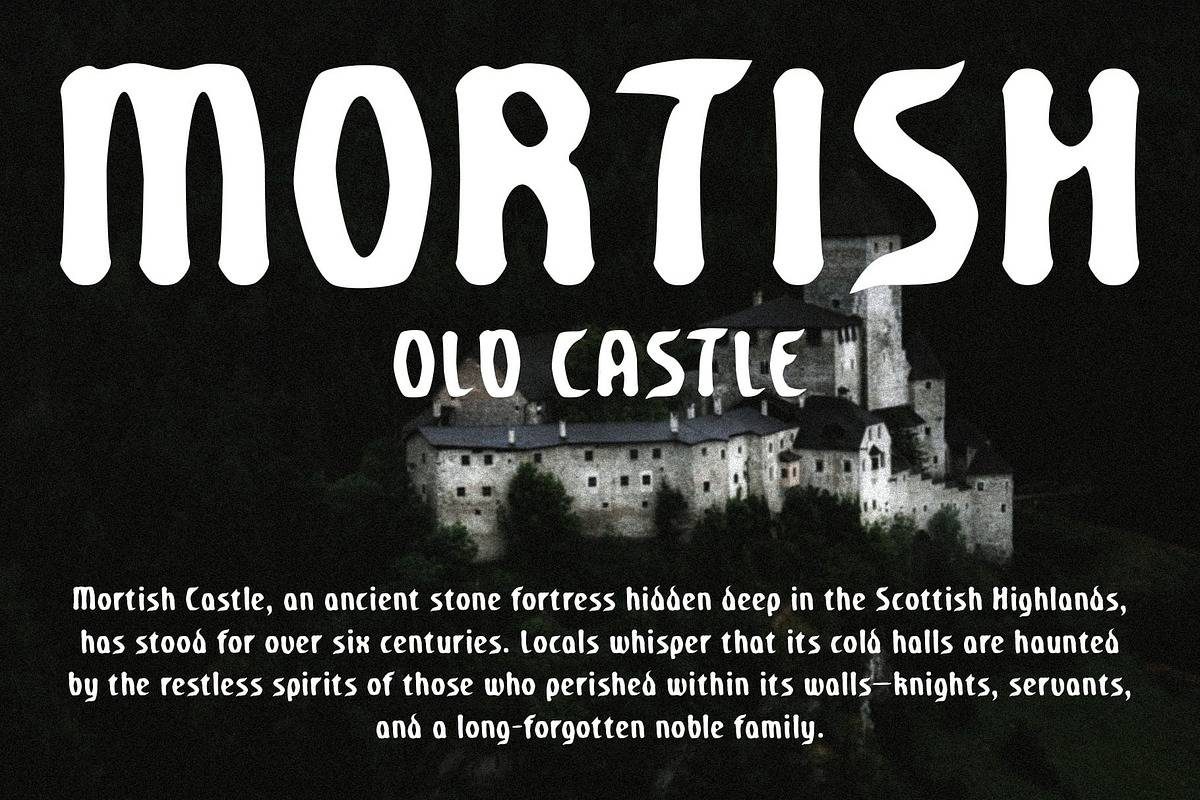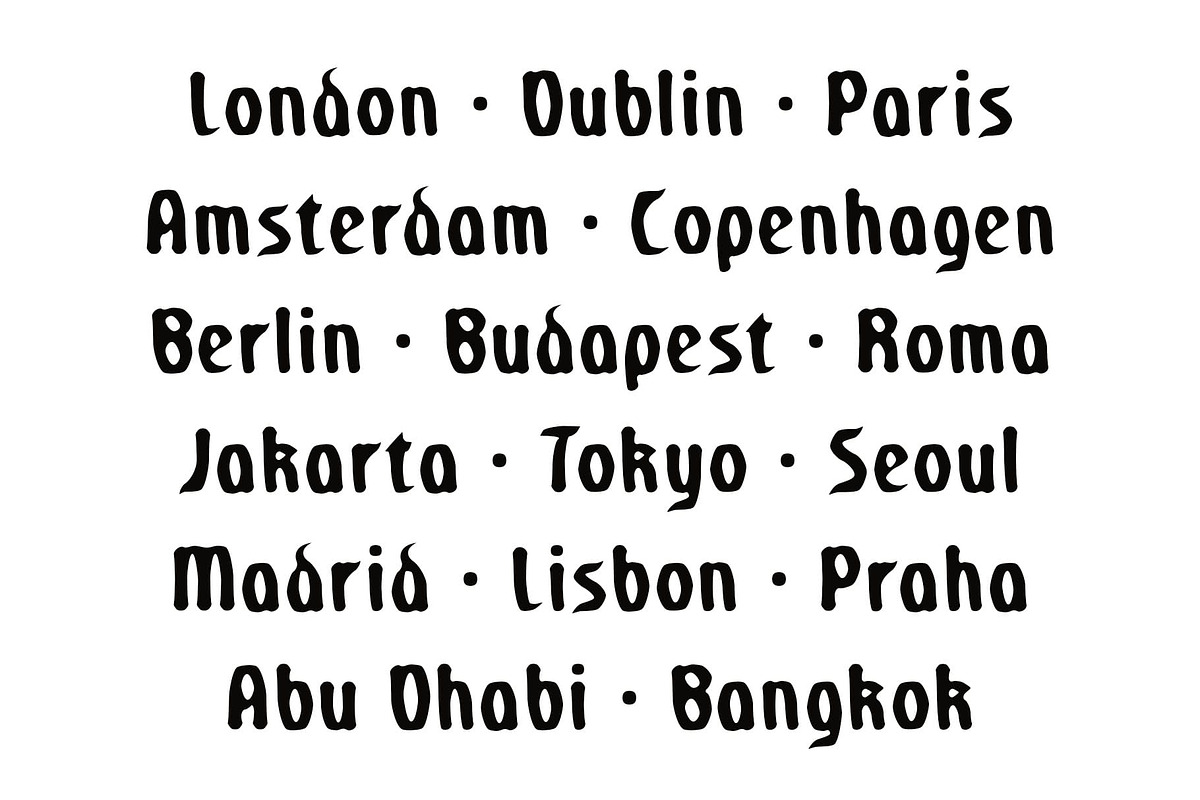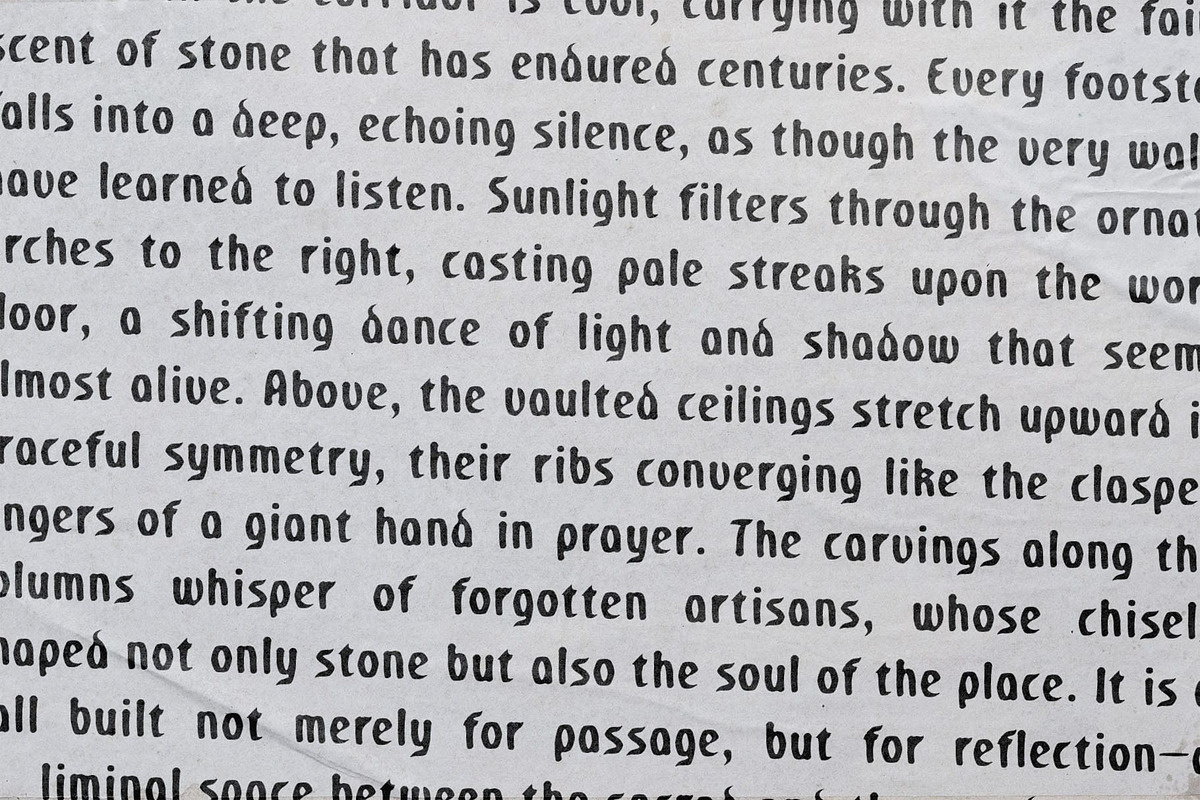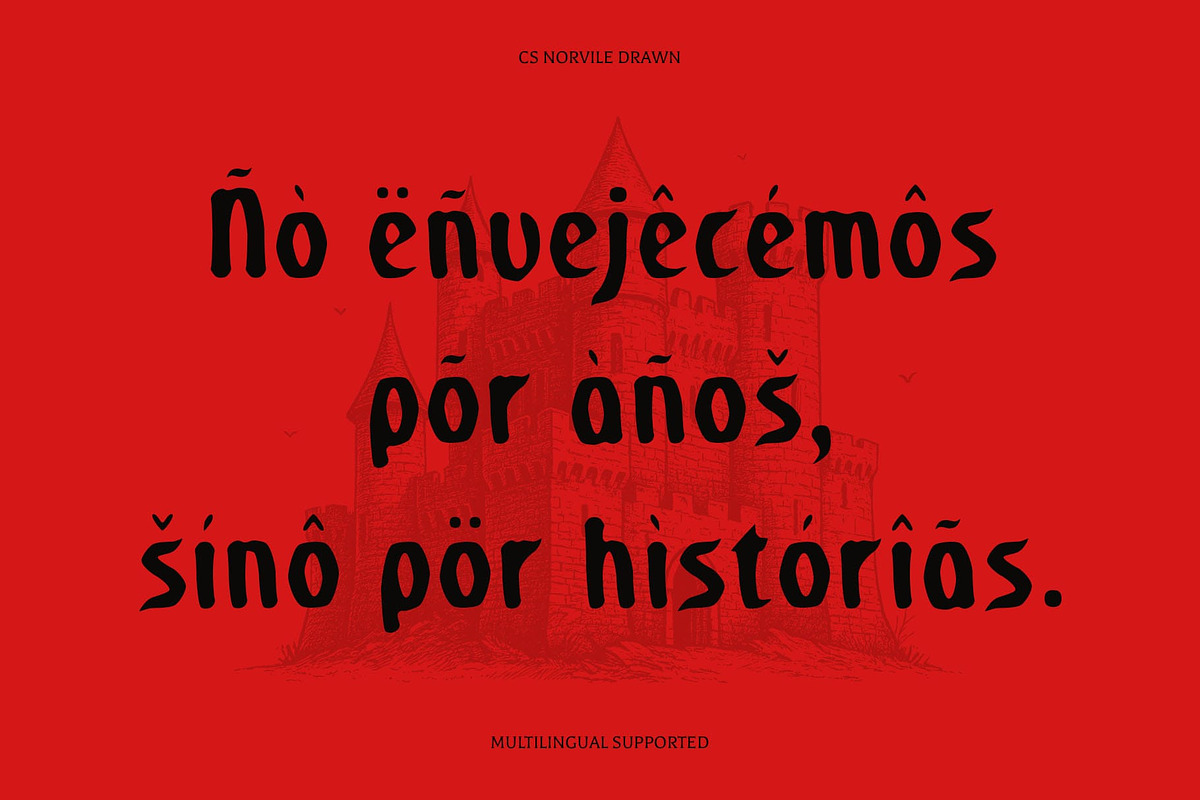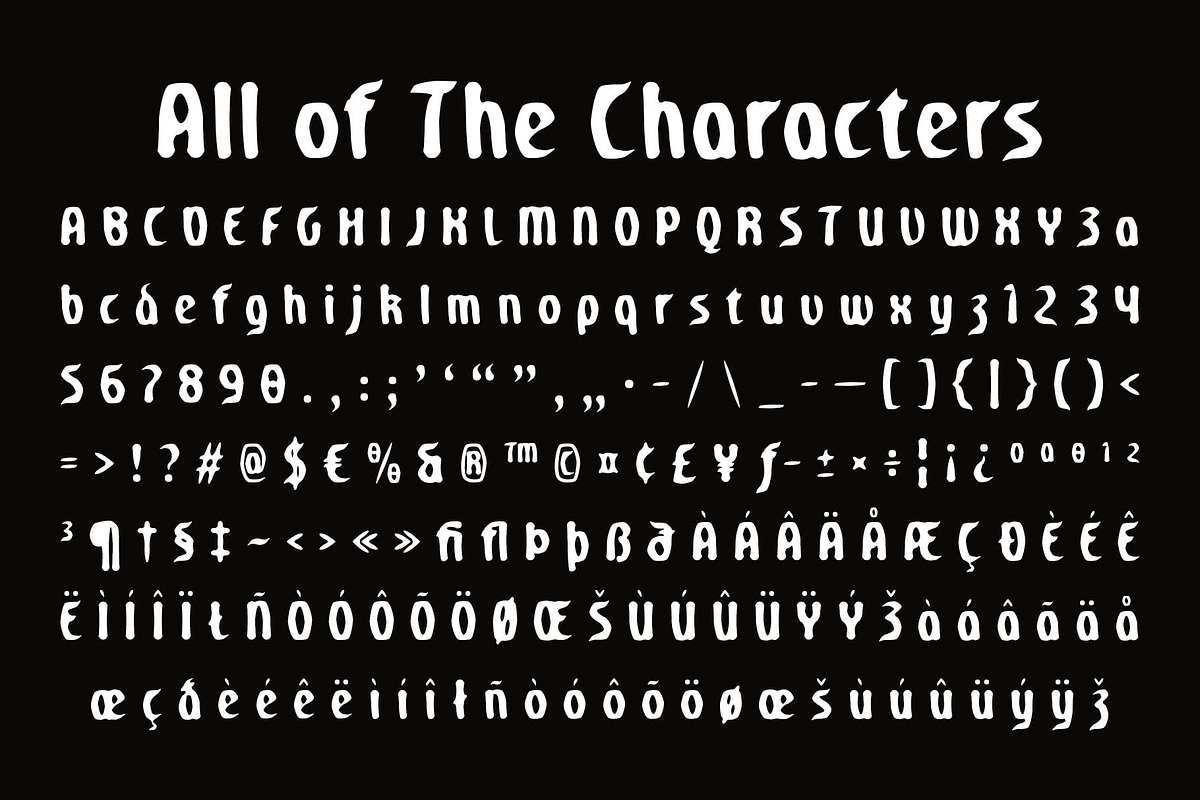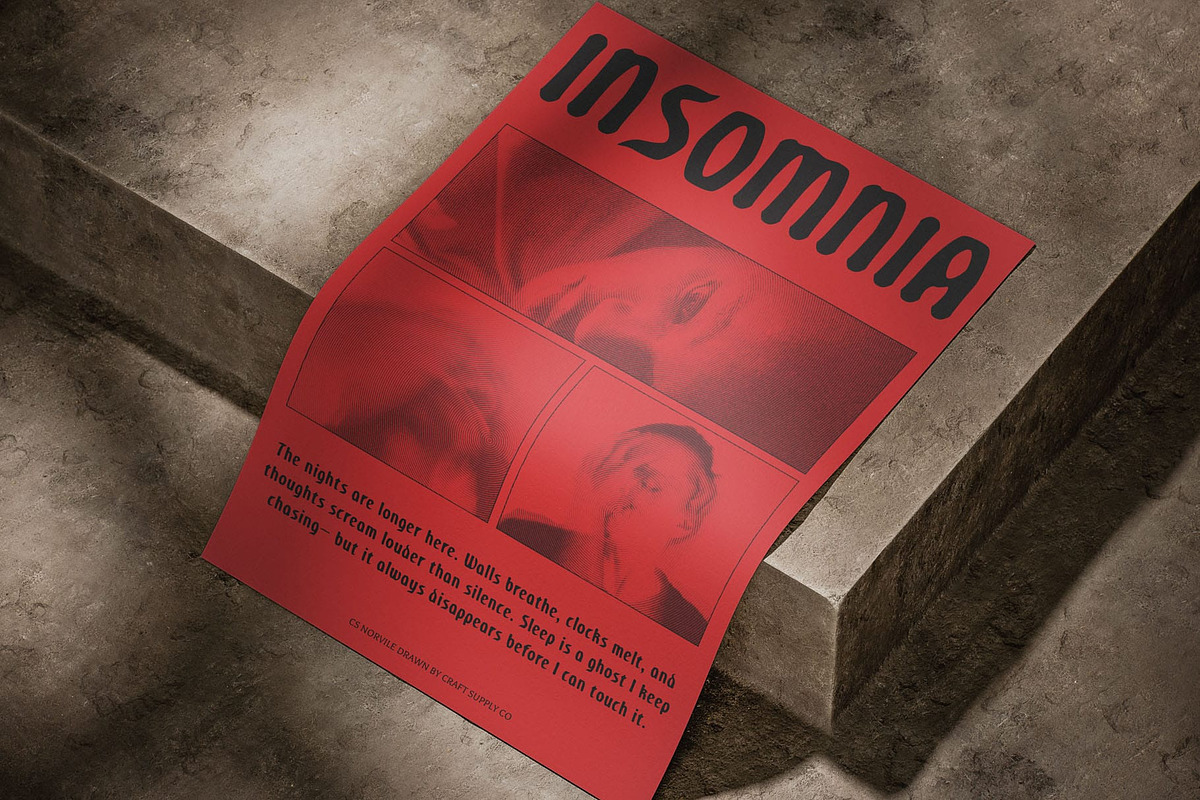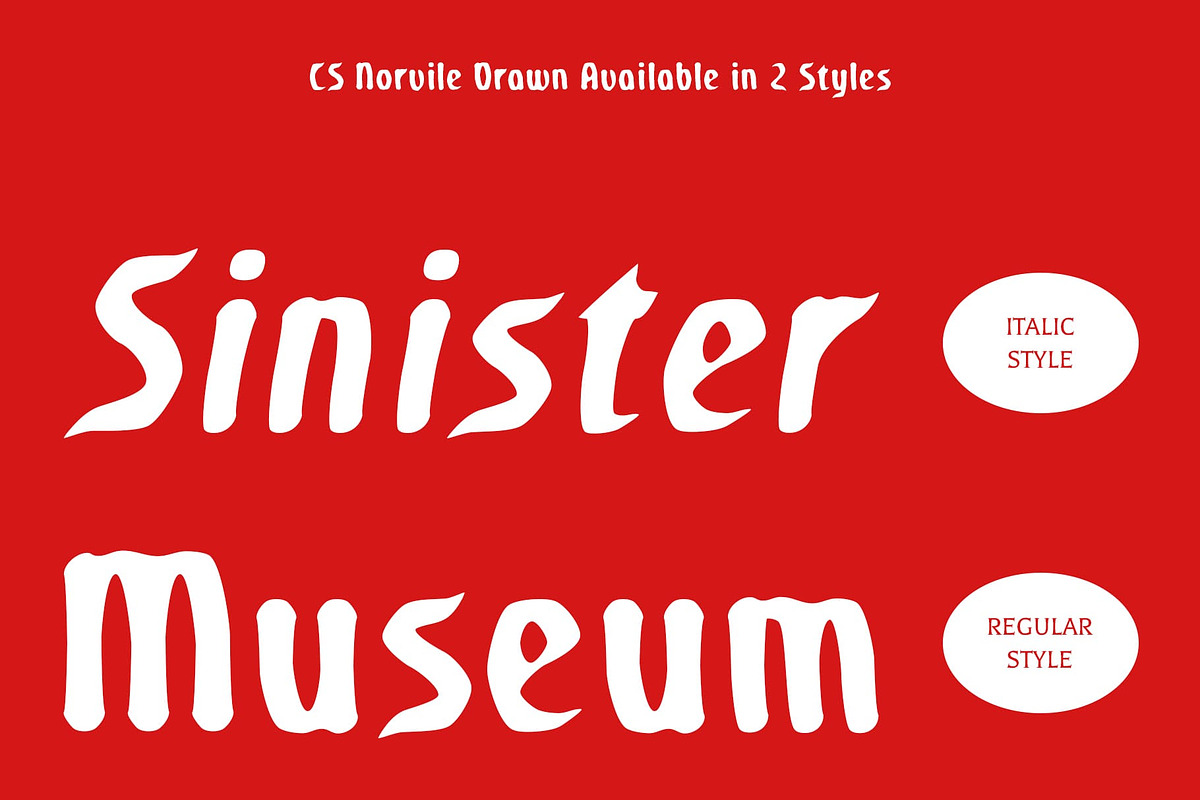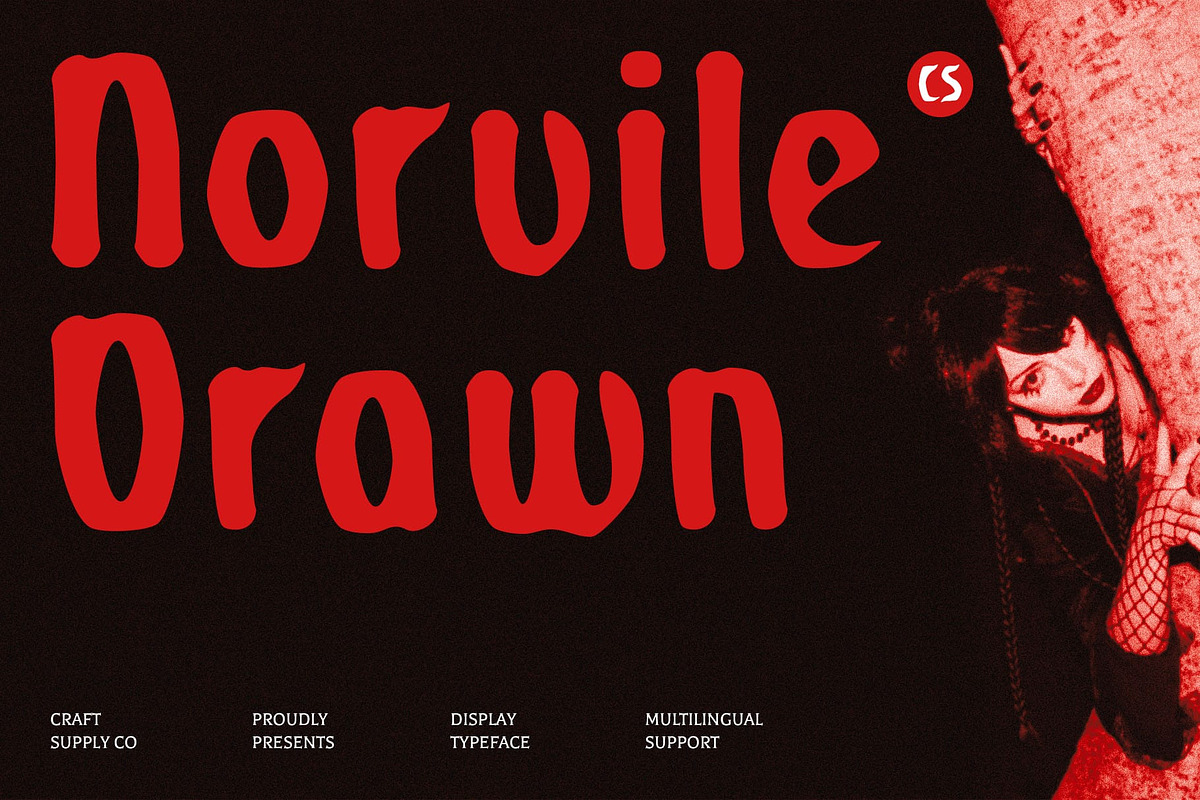
CS Norvile Drawn
CS Norvile Drawn: Bold Gothic Display with Handmade Character
Classic Gothic Letterforms with Bold Presence CS Norvile Drawn is a display font featuring strong, traditional Gothic shapes that convey a sense of authority and drama. Its bold forms create a commanding typographic presence, perfect for projects that need impact and strength.
Hand-Drawn Effect for Artistic Texture The subtle drawn effect adds a handcrafted, textured quality to each character, giving the font unique personality. This artistic touch enhances its dramatic and expressive nature, making designs feel vivid and distinctive.
Ideal for Posters, Branding, and Titles Perfect for posters, book covers, logos, and creative branding projects, this handcrafted and unique font delivers a bold and captivating aesthetic. Its combination of Gothic tradition and artistic texture ensures each project stands out with style.
Versatile for Strong and Expressive Designs While rooted in classic Gothic typography, this mysterious and gothic font adapts seamlessly to contemporary creative applications. Its blend of bold, structured forms and handmade artistry makes it ideal for projects that seek both strength and visual intrigue.
Elevate Your Creative Projects Whether used for high-impact editorial work, luxury branding, or eye-catching posters, this expressive and eye-catching font brings a tactile, artistic quality to every design. Its handmade details add authenticity and depth, giving each project a powerful yet artistic identity.
- CS Norvile Drawn Regular
- CS Norvile Drawn Italic